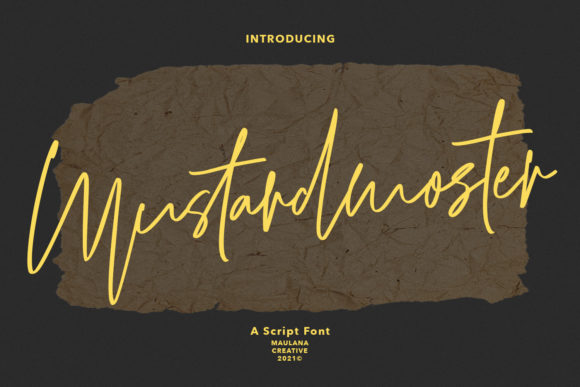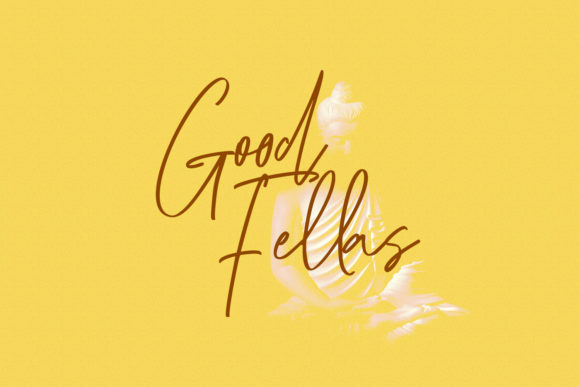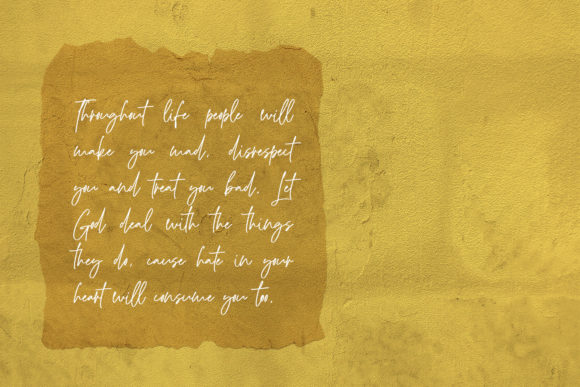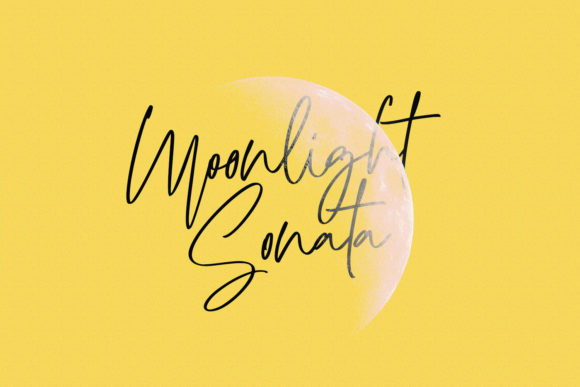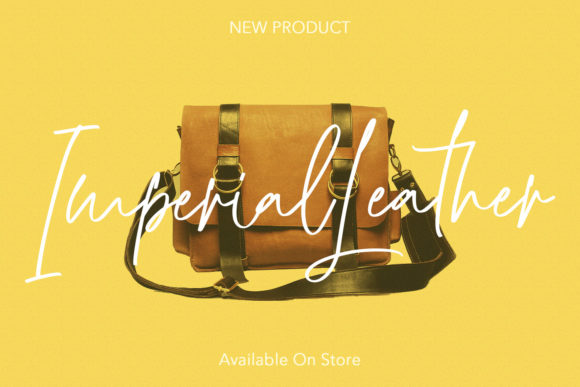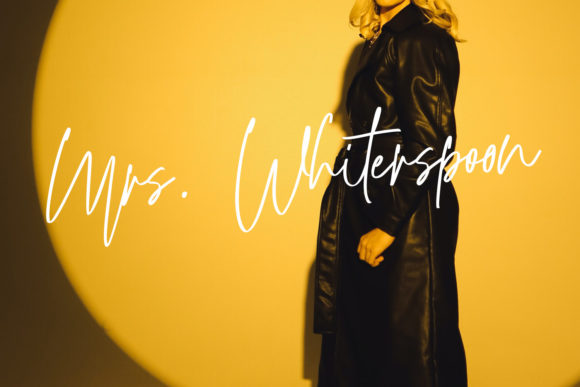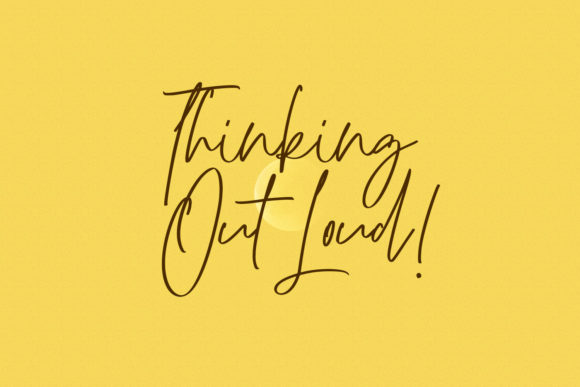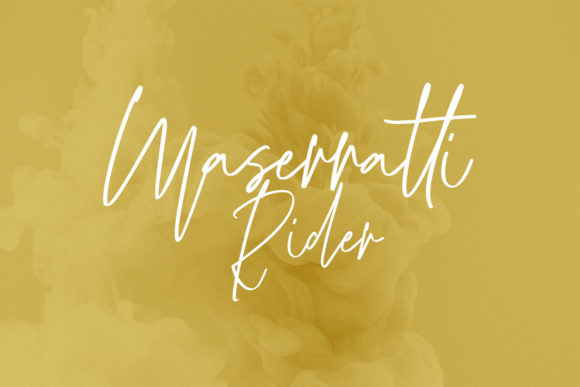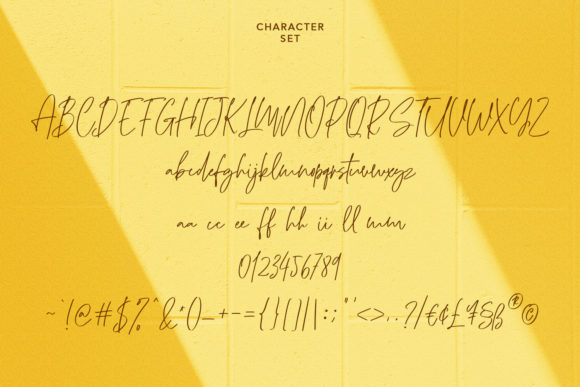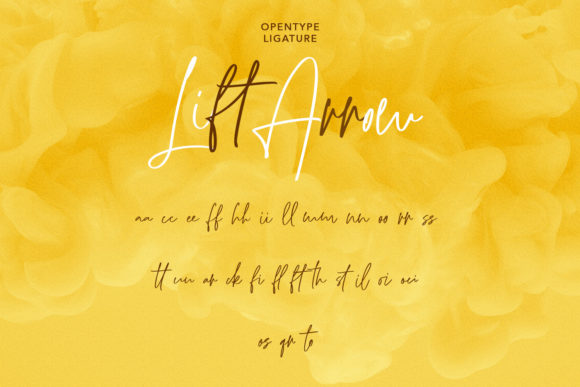
Mustardmoster Script Font
About Mustardmoster Script Font
Mustardmoster Script is a stylish and laid-back script font. This versatile script font has a wide spectrum of applications ranging from greeting cards to headlines and is guaranteed to add a romantic feel to your next project.